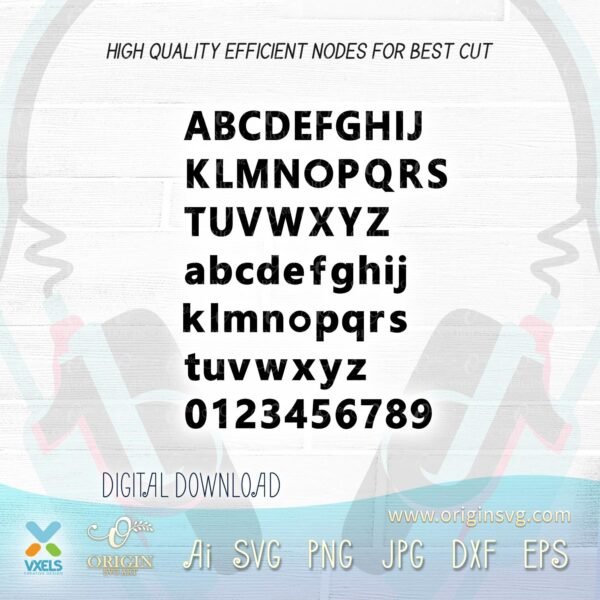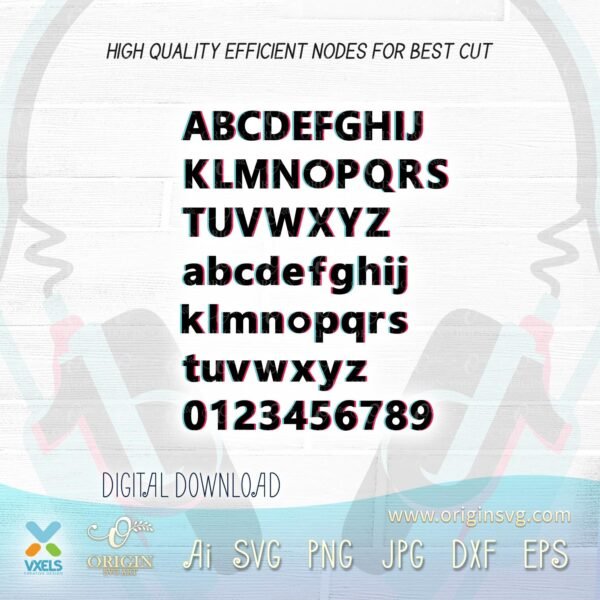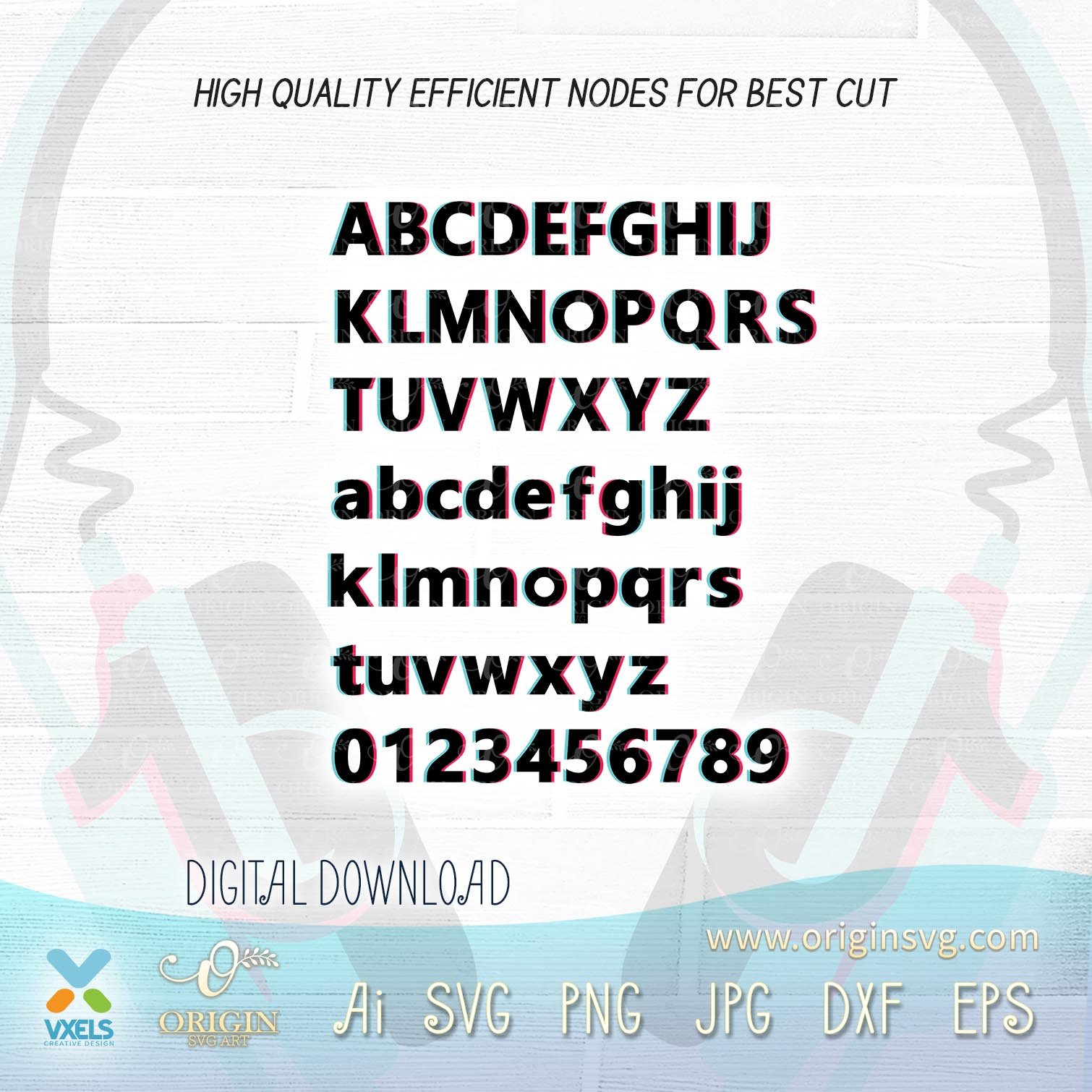
Tiktok Fonts Bundle SVG All in one Alphabet and Numbers Tik Tok 3 style fonts (original and 2 style font effects). Includes free headphones cutfile set Cricut cut file bundle for wall sign SVG, Illustrator, DXF, EPS PNG and Jpeg Image. This musical cutting clip art is ready to download for card design, t-shirt, mug, pillow, art and craft, or other artworks. Printable Wall Decor, Printable Sign, Wall Sign, Commercial Use, File Download, SVG PNG.